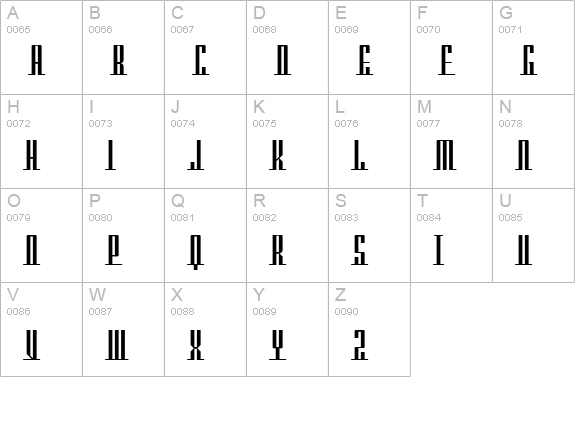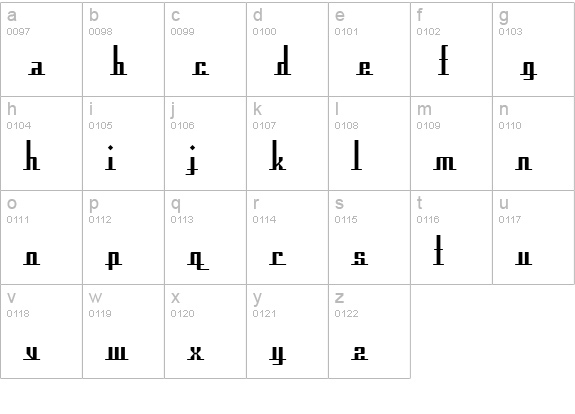
SF Americana Dreams Upright Font Details
SF Americana Dreams Upright font is a stunning typeface that effortlessly blends the essence of classic Americana with a modern twist. It captures the spirit of adventure, freedom, and the American dream in every single character. With its tall and bold letterforms, SF Americana Dreams Upright commands attention and adds a touch of vintage charm to any design project. Whether you're creating a logo, a poster, a book cover, or any other creative endeavor, this font is sure to make a lasting impression. The upright posture of this font exudes confidence and strength, while the delicate serifs and subtle curves give it a touch of elegance and refinement. It strikes the perfect balance between tradition and innovation, making it suitable for a wide range of applications. One of the best features of SF Americana Dreams Upright is that it is freely available to download at FontsMarket.com. This means that you can easily access this exceptional font and use it in your personal and commercial projects without any restrictions. The generous availability of SF Americana Dreams Upright ensures that designers and creatives everywhere can benefit from its unique aesthetic and versatility. So, whether you're aiming to create a nostalgic vintage design or add a touch of American heritage to your modern project, SF Americana Dreams Upright font is the perfect choice. Its timeless appeal and free accessibility make it a must-have for any design enthusiast or professional. Download SF Americana Dreams Upright today from FontsMarket.com and embark on a typographic journey that celebrates the spirit of Americana.